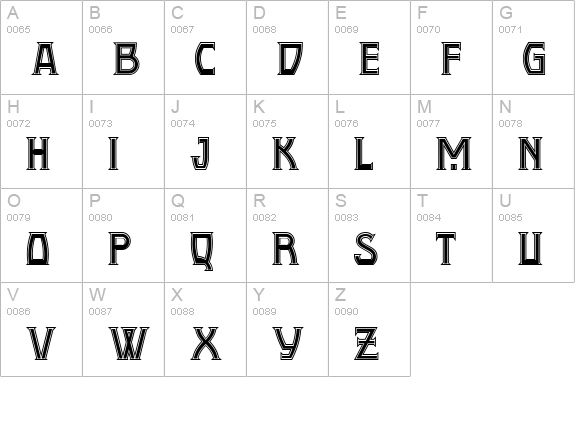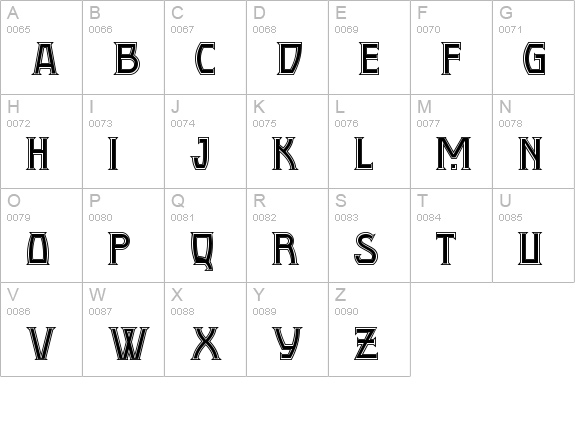
ConquistadormanNF Font Details
ConquistadormanNF is a unique and elegant font that combines classic elements with a modern twist. Its intricate details and stylish design make it perfect for adding a touch of sophistication to any project. This font is versatile and can be used for various purposes, from branding to invitations to social media graphics. Best of all, ConquistadormanNF is available for free! You can easily download this stunning font at FontsMarket.com and start using it in your designs right away. Don't miss out on the opportunity to enhance your projects with this beautiful and eye-catching typeface.